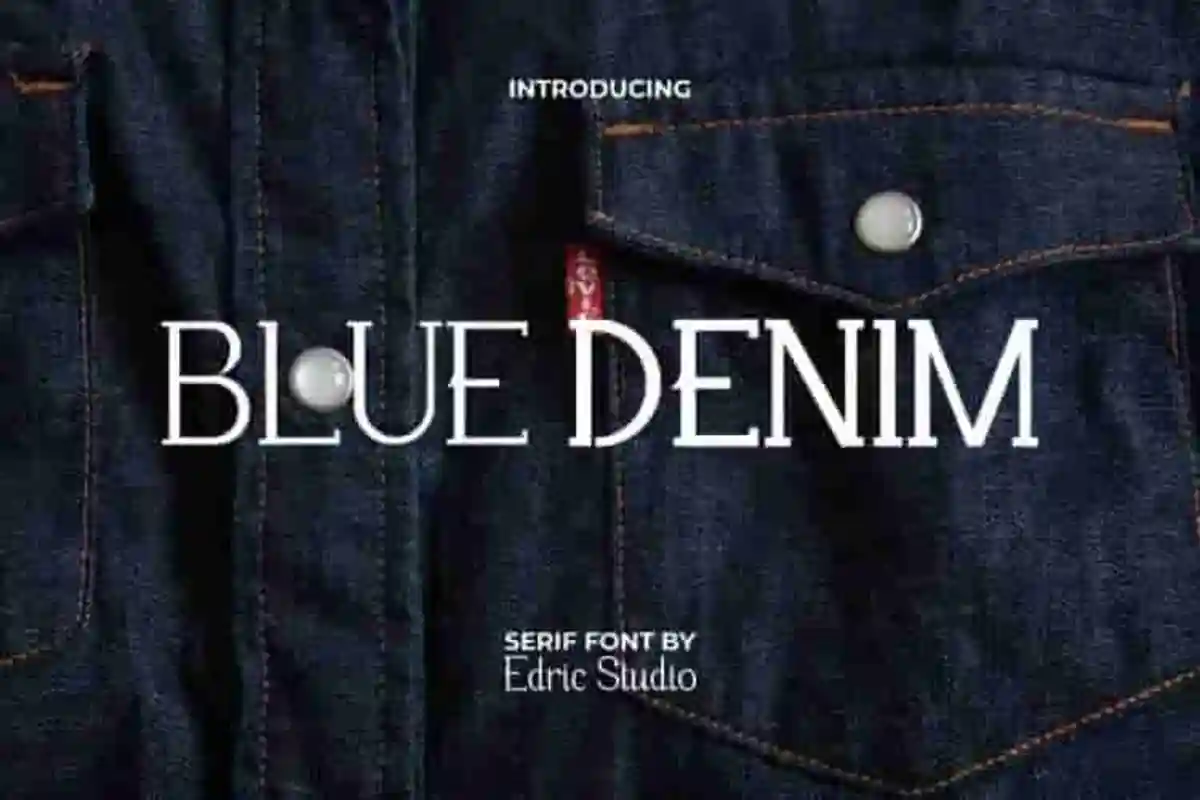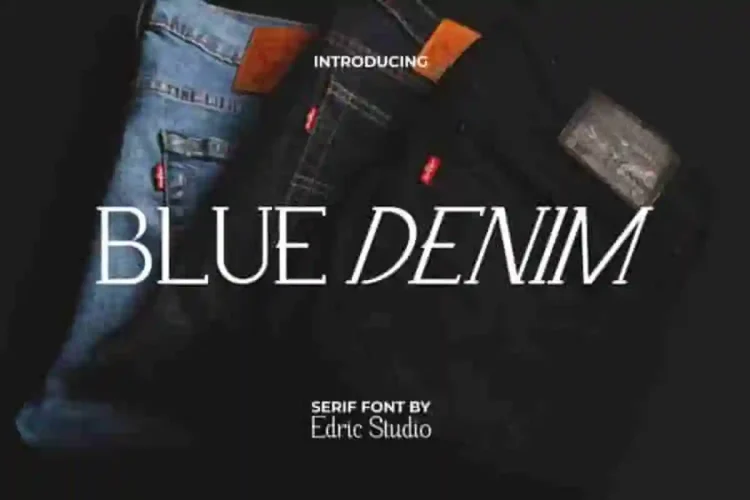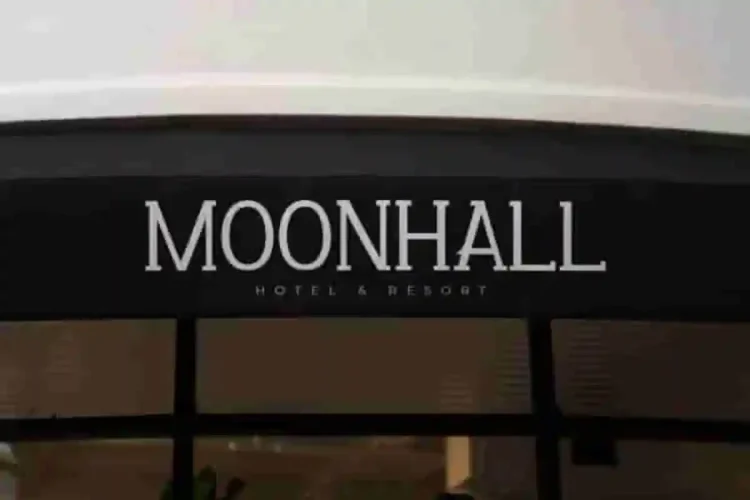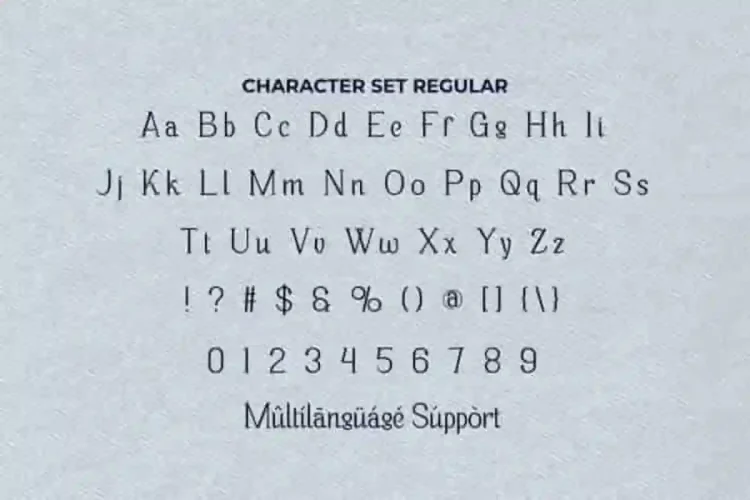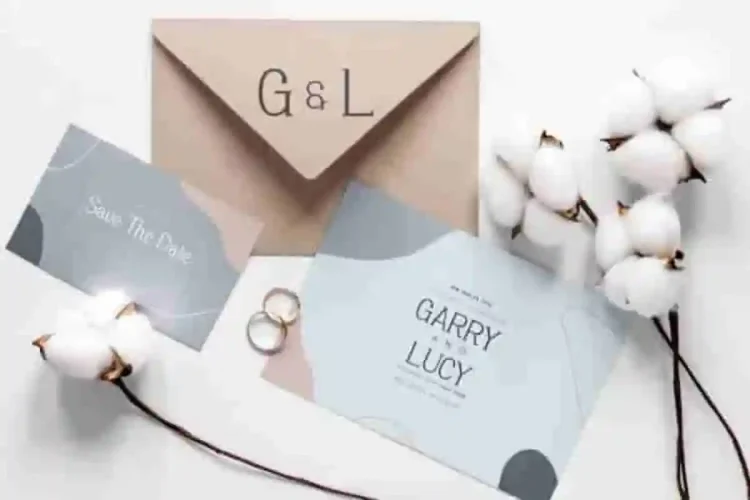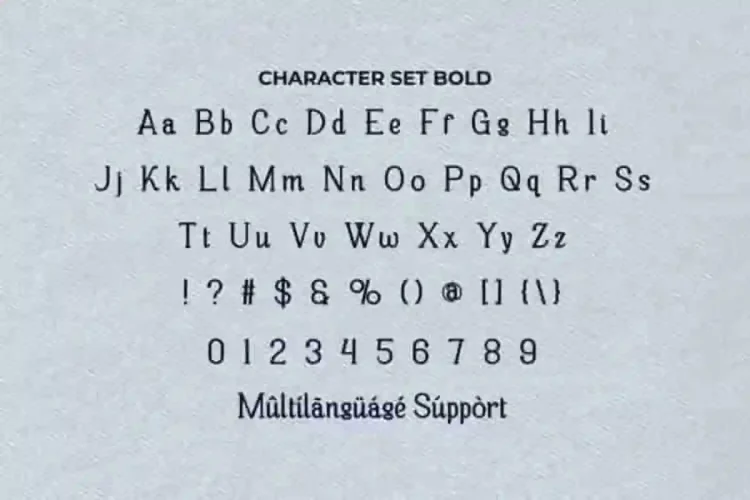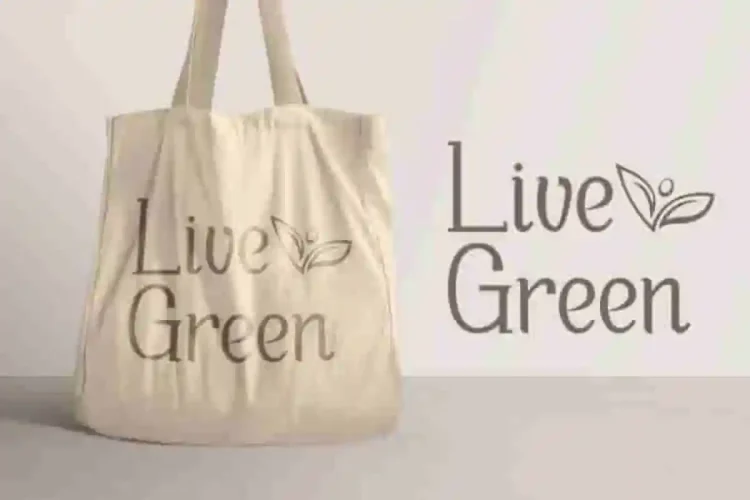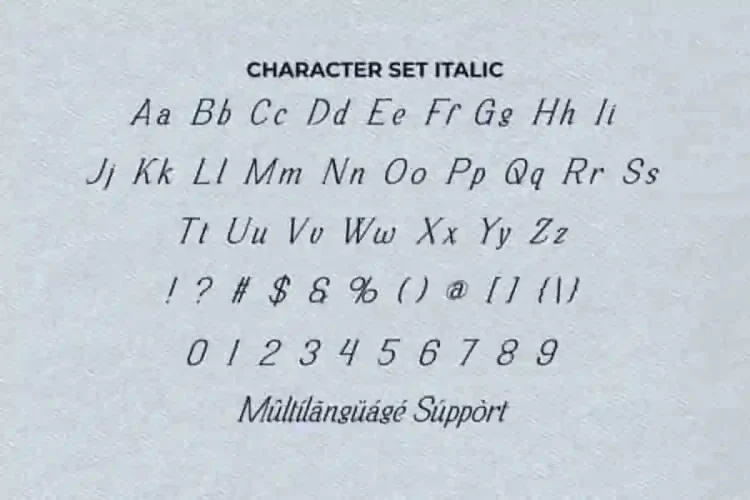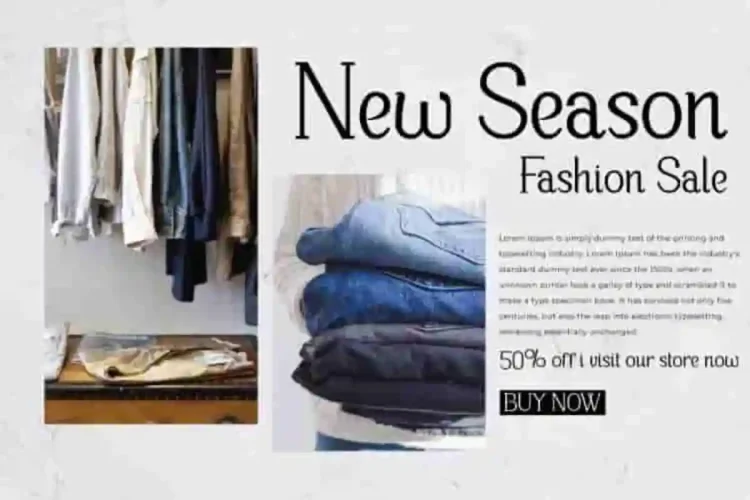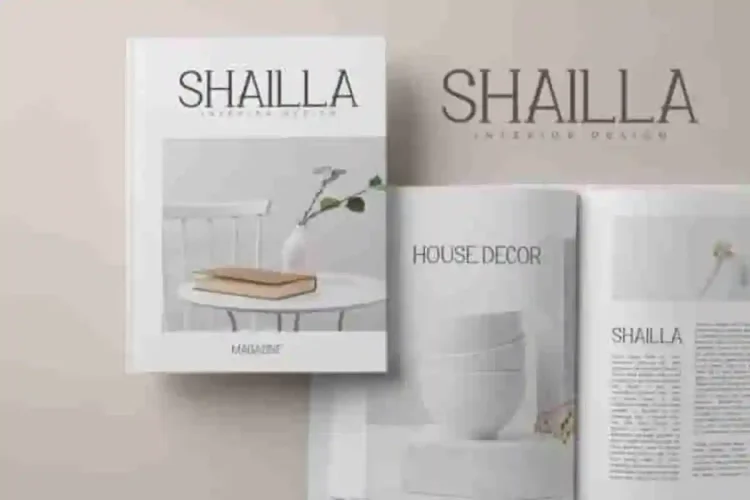
Blue Denim Sans Serif Font
Blue Denim Sans Serif Font a classic serif typeface created by EdricStudio. This font has three styles in one font pack : Regular, Bold, and Italic which makes it awesome. Almost any industry will be suitable for this typeface including: apparel, architect, barber, café, fashion, furniture, movie, photography, publishing, real estate, wedding organizer, writer, etc.
Blue Denim Sans Serif Font comes with a full set of Uppercase and Lowercase Basic Characters, Number, large range of Punctuation and Symbol. It has a stunning characters set, perfectly managed with well spaced and kerning.
Blue Denim Sans Serif Font is a playful typeface with unique decoration in each character. Ready to use both on Windows machine or Mac with simple installations. It’s tested to work well in the Adobe Apps (Illustrator, Adobe InDesign, Adobe Photoshop) even work on Microsoft Word. PUA Encode Characters means you can access all the glyphs and other characters easily – Fully accessible without additional design software.